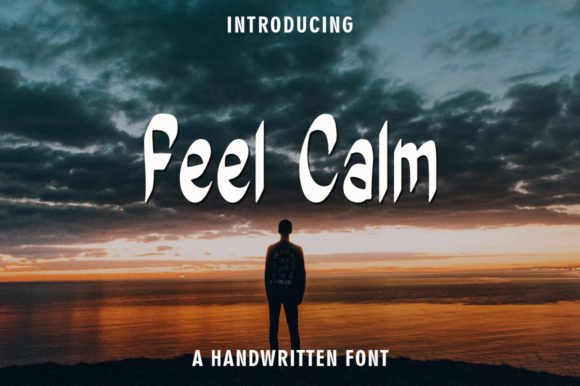
Enter the Feel Calm Font, a bold handwritten font carefully crafted to become a true favorite among designers. Its casual charm makes it perfect for any project, from casual blog posts to high-end branding. With its down-to-earth feel and readability, the Feel Calm Font is a valuable addition to any designer’s toolkit.
Whether you’re working on a busy background or creating a standalone headline, the Feel Calm Font is sure to deliver outstanding results. Its unique blend of style and functionality makes it a must-have for designers looking to elevate their projects to the next level.
Key Features of “Feel Calm Font”
- Unique Characteristics: Designed to evoke feelings of serenity and relaxation, this font features smooth curves and rounded edges, making it perfect for calming and soothing content.
- Font Style: Available in Regular and Italic styles, providing flexibility for designers and typographers to create a range of visual effects.
Designer Review: Feel Calm Font
I recently had the chance to work with the Feel Calm Font, and I’m here to share my honest thoughts on this font.
- ✨ Unique Character: The Feel Calm Font has a distinct character that sets it apart from other fonts. Its rounded edges and soft curves create a calming atmosphere, perfect for designs that require serenity.
- ✨ Consistency: The font is consistent in its design, making it easy to use across different sizes and applications.
- ✨ Legibility: The font is highly legible, even at small sizes, which is essential for body text and other areas where readability is crucial.
- ⚠️ Limited Versatility: While the Feel Calm Font is perfect for calming designs, it may not be the best choice for more energetic or bold projects.
- ⚠️ Limited Character Set: The font’s character set is not as extensive as other fonts, which may limit its use in certain applications.
Overall, I’m impressed with the Feel Calm Font’s unique character and consistency. While it may have some limitations, it’s an excellent choice for designs that require a calming atmosphere. If you’re looking for a font that can evoke feelings of serenity, the Feel Calm Font is definitely worth considering.
Practical Application Guide: Feel Calm Font
The Feel Calm Font is ideal for creating calming and soothing designs, such as:
- Wellness and self-care branding
- Meditation and mindfulness graphics
- Relaxing and calming product packaging
Remember to experiment with different font sizes, colors, and styles to achieve the desired mood and atmosphere in your designs.